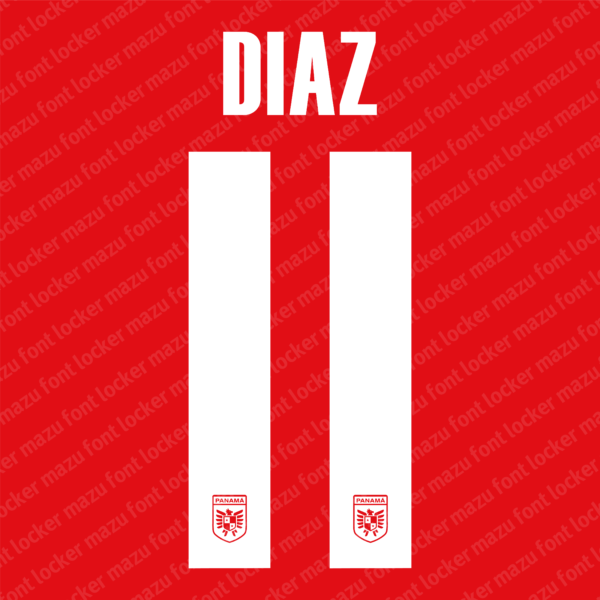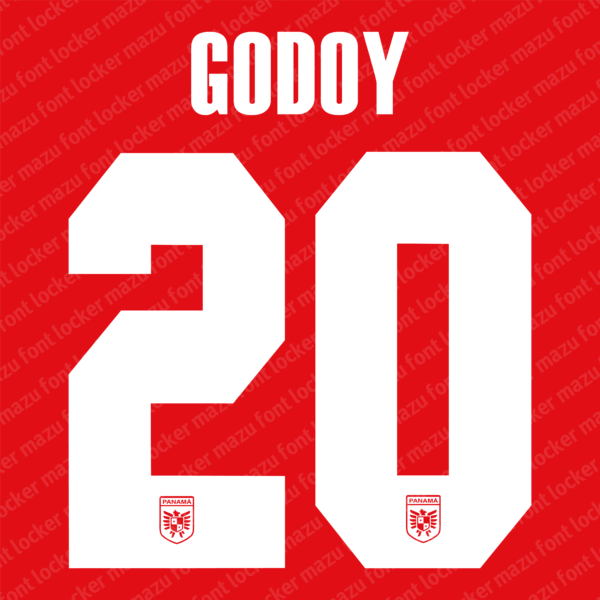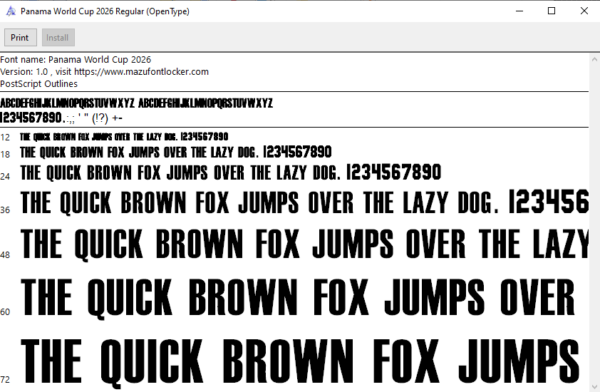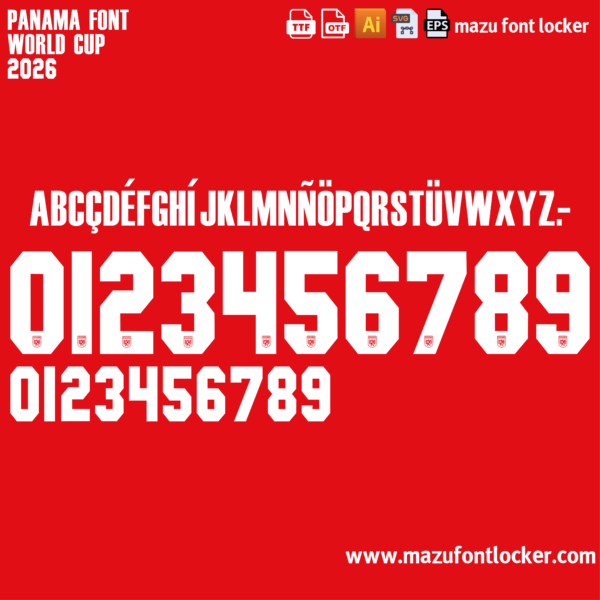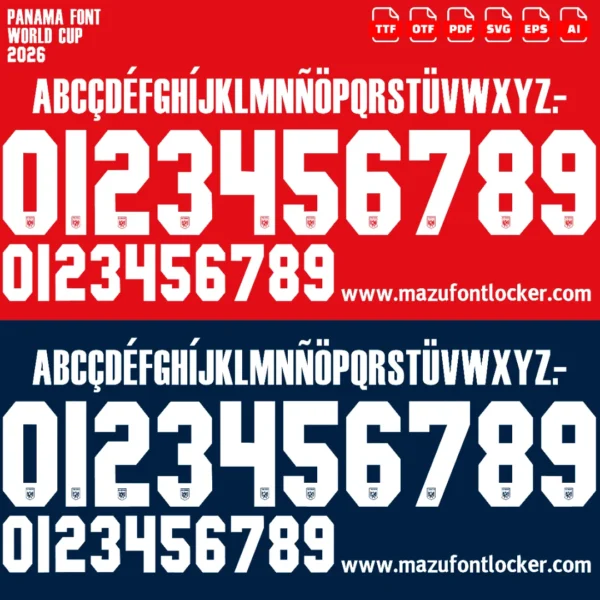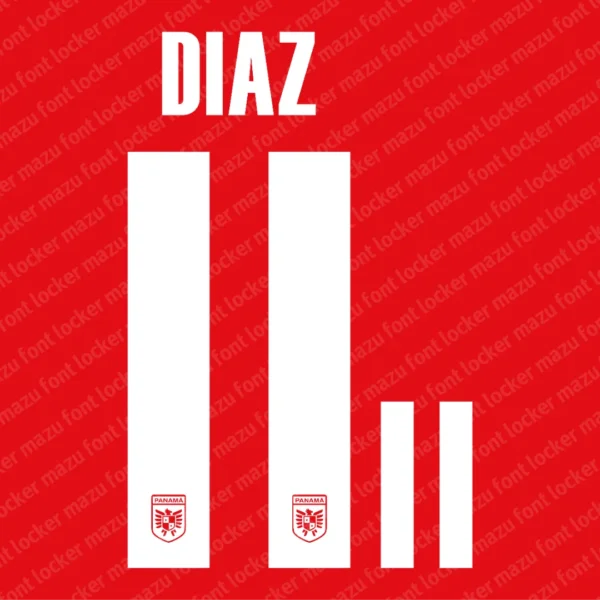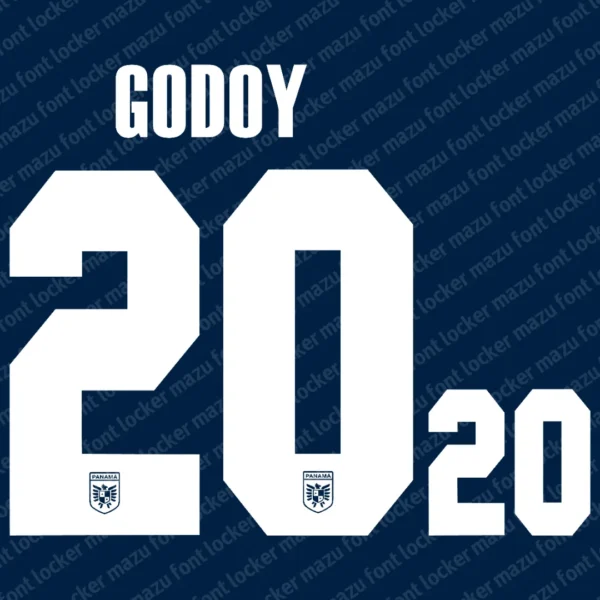
Panama World Cup 2026 Font Vector – Vibrant Central American Pride
This premium font faithfully recreates the official match lettering worn by Panama during the FIFA World Cup 2026 — delivering authentic national team identity, unwavering Central American pride, fearless competitive spirit, passionate fan support, resilient performances, bold championship ambition, and the unmistakable red-and-blue colors that unite an entire nation in pursuit of World Cup glory.
Panama World Cup 2026 Font Vector – Proud Los Canaleros Tournament Typeface
The Panama World Cup 2026 Font Vector is a premium typeface that accurately recreates the official match lettering worn by the Panama national football team during the 2026 FIFA World Cup. This high-quality vector font kit captures the bold, modern, and distinctive typography featured on Panama’s tournament kits, perfectly complementing the nation’s iconic red, white, and blue identity as Los Canaleros compete on football’s biggest stage.
Designed for professional designers, football enthusiasts, collectors, and passionate Panama supporters, the Panama World Cup 2026 Font Vector delivers exceptional authenticity for creating realistic jersey mockups, football merchandise, social media graphics, tournament posters, and custom fan artwork. Every character has been carefully recreated to reflect the official shirt lettering used throughout the 2026 FIFA World Cup.
This font stands out thanks to its precise vector construction and tournament-accurate styling. Every letter and numeral has been meticulously recreated to match the official jersey typography worn by Panama during the 2026 FIFA World Cup. Whether you’re producing realistic kit concepts or creating eye-catching football content, the Panama World Cup 2026 Font Vector delivers a genuine professional appearance.
The lettering featured in the Panama World Cup 2026 Font Vector combines bold geometric forms with clean modern proportions. The result is a highly readable and professional design that reflects the determination, pride, and competitive spirit of the Panama national team on the world’s biggest football stage.
The numerals feature sharp contours, balanced spacing, and excellent visibility for match use. Built entirely as scalable vectors, every number remains crisp for jersey customization, digital graphics, posters, and large-format printing.
• Complete uppercase A–Z alphabet and numbers 0–9 in authentic Panama World Cup 2026 style
• Includes authentic federation crest glyph placement beneath player numbers
The Panama World Cup 2026 Font Vector is an independently designed typeface package inspired by the official shirt lettering used during the 2026 FIFA World Cup. It has been carefully recreated for football enthusiasts, graphic designers, collectors, and creators producing custom jersey concepts, tournament artwork, and fan-made projects.